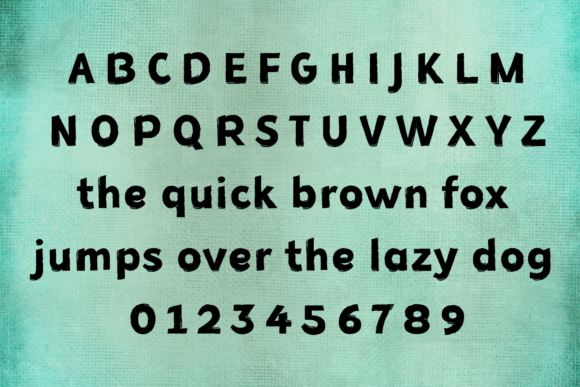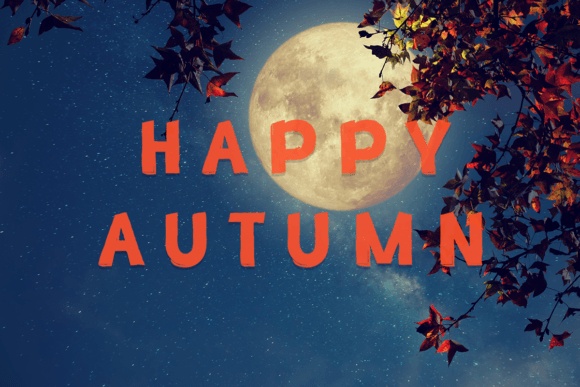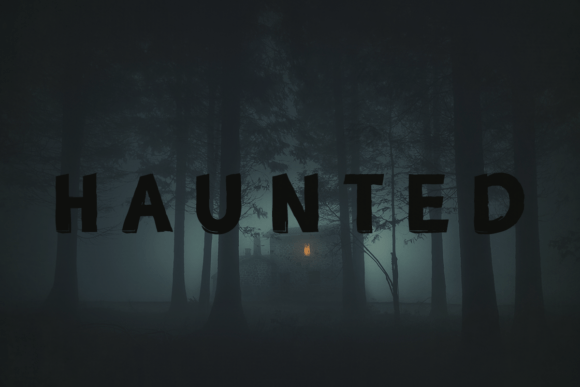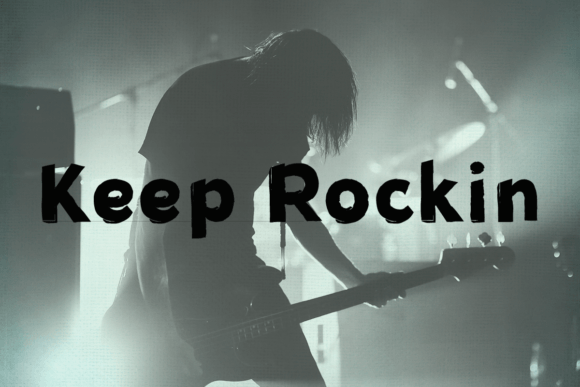
Introduction to November Night Font
November Night is a stylish, grunge-style display typeface.
It is a perfect fit for any project that needs a cool, edgy feel, including rock music posters and heavy metal albums, Halloween-themed designs, horror-themed projects and so much more .